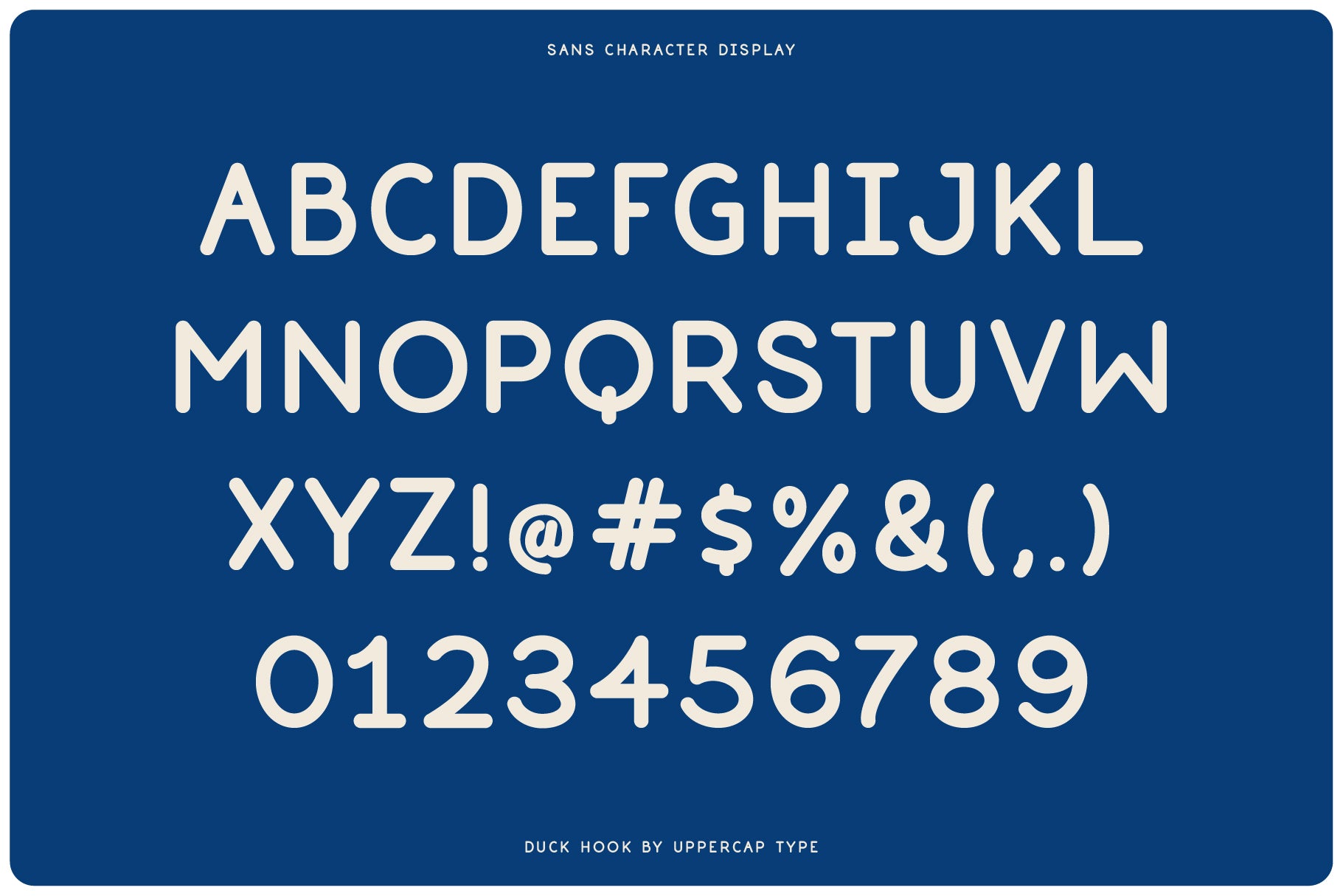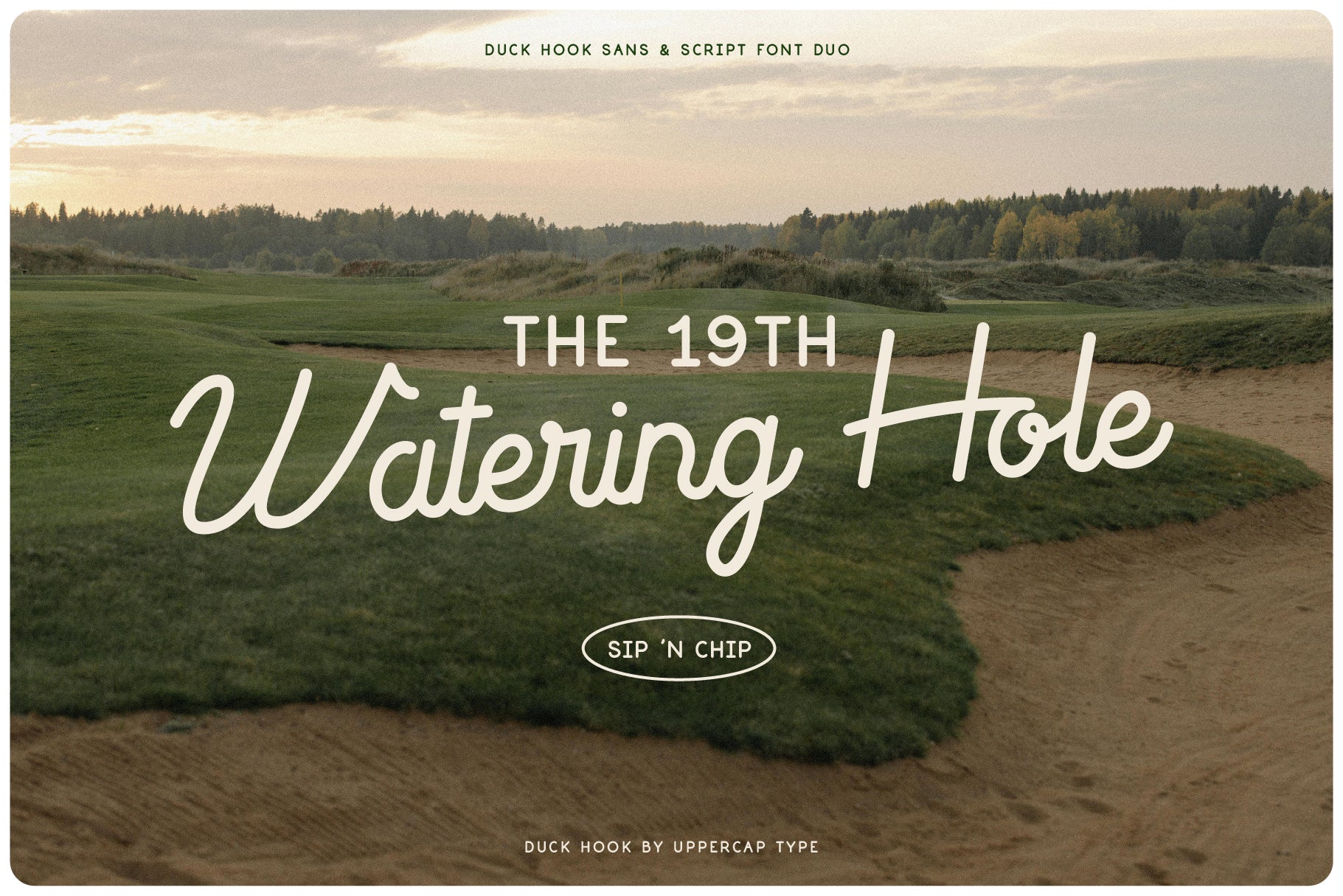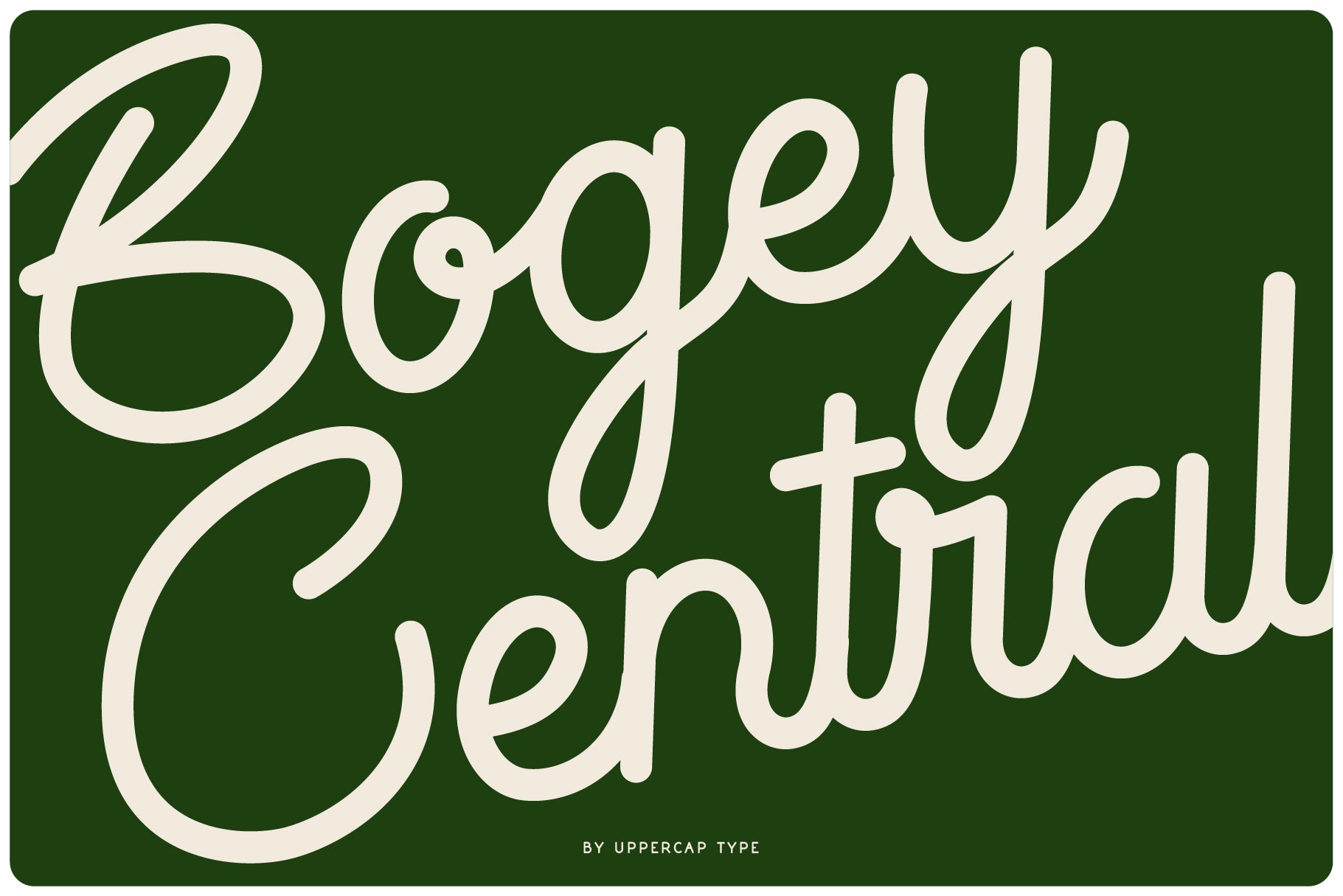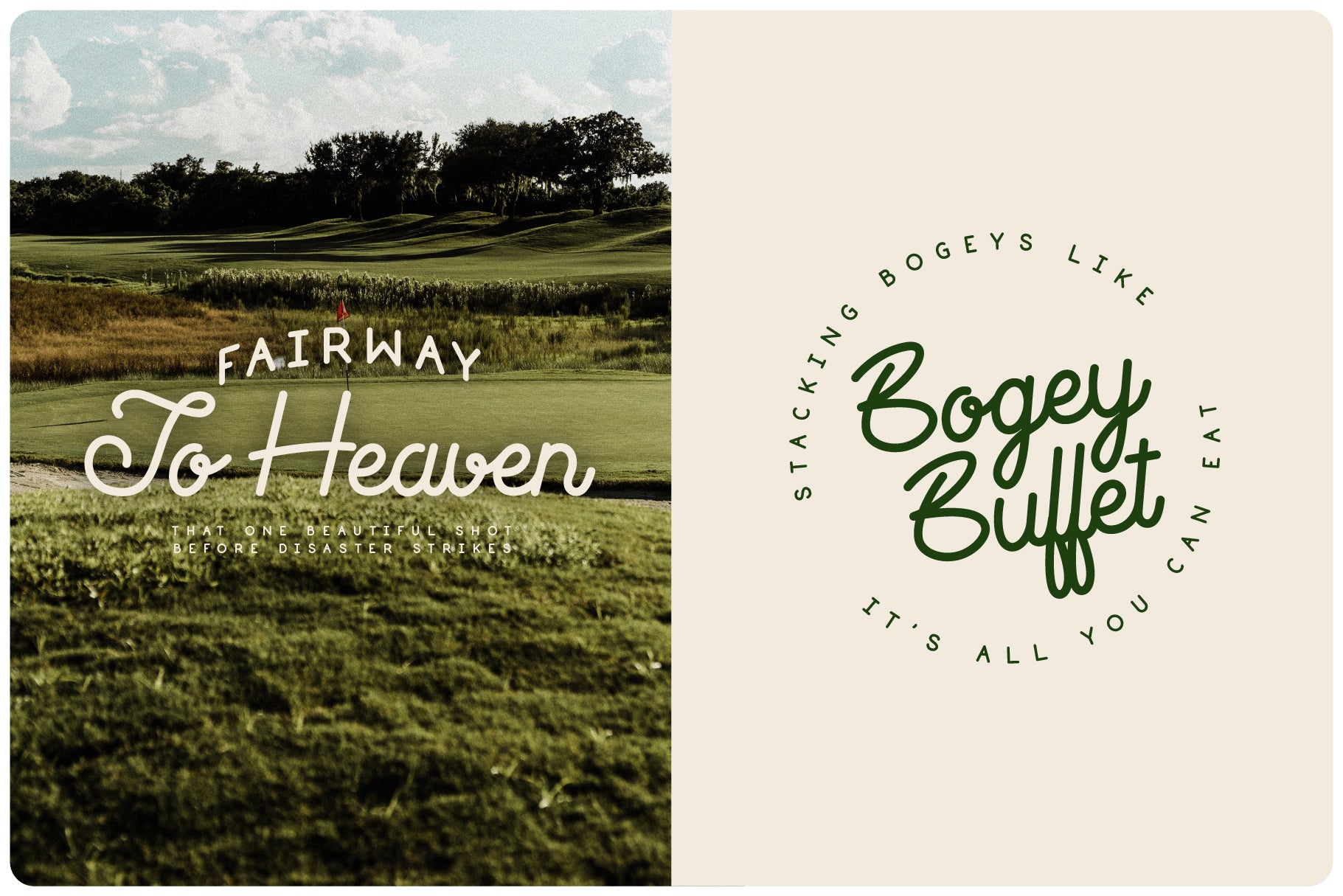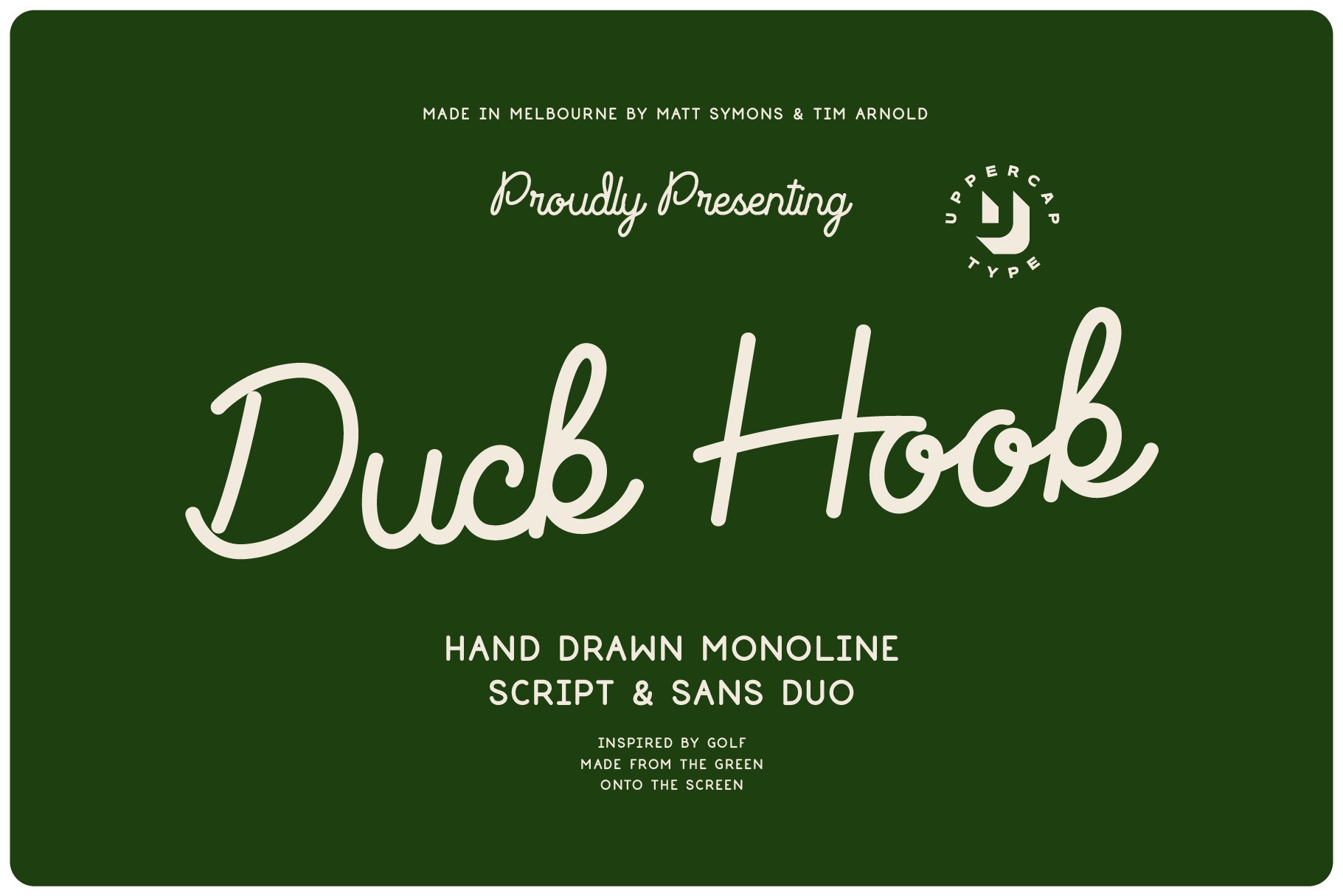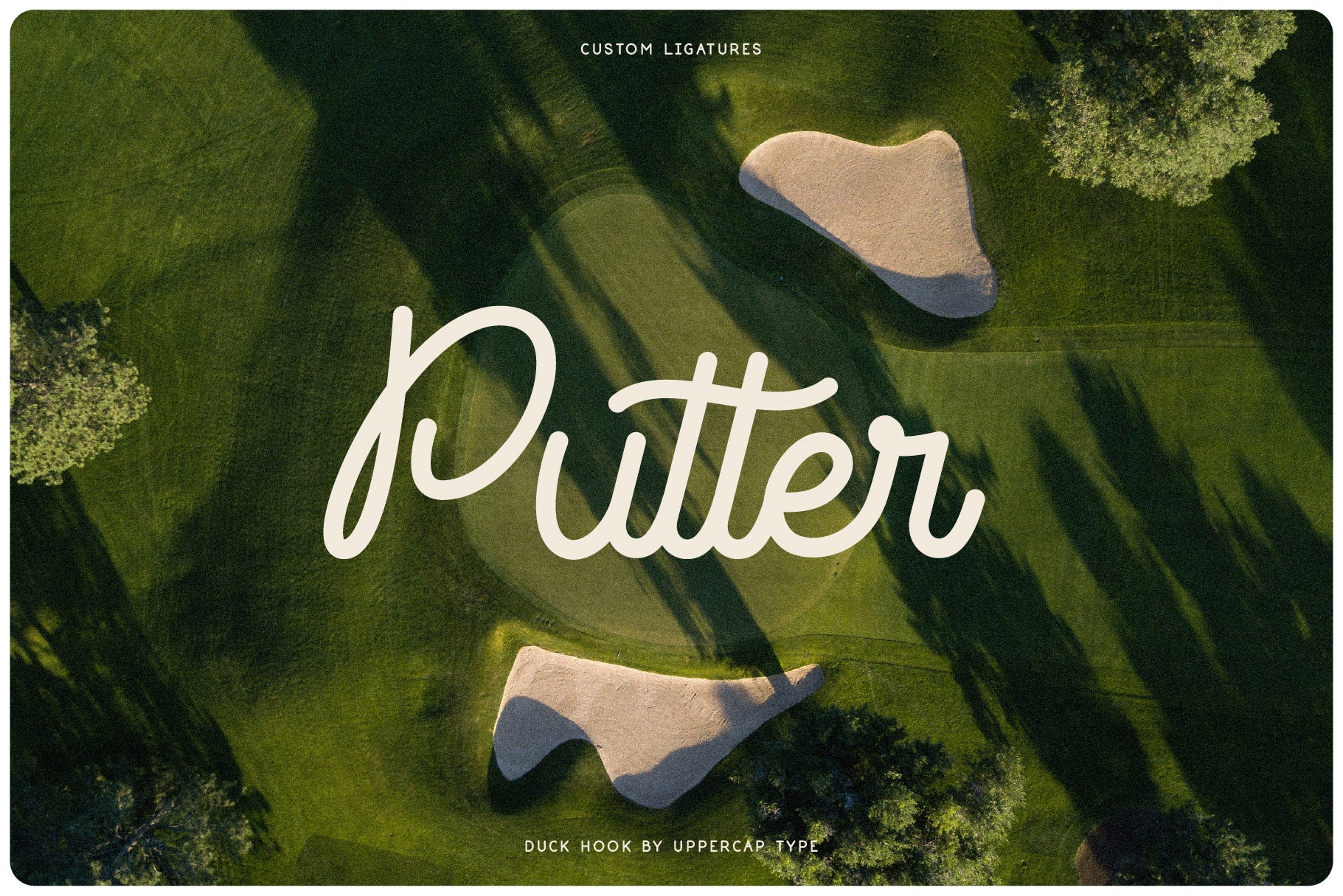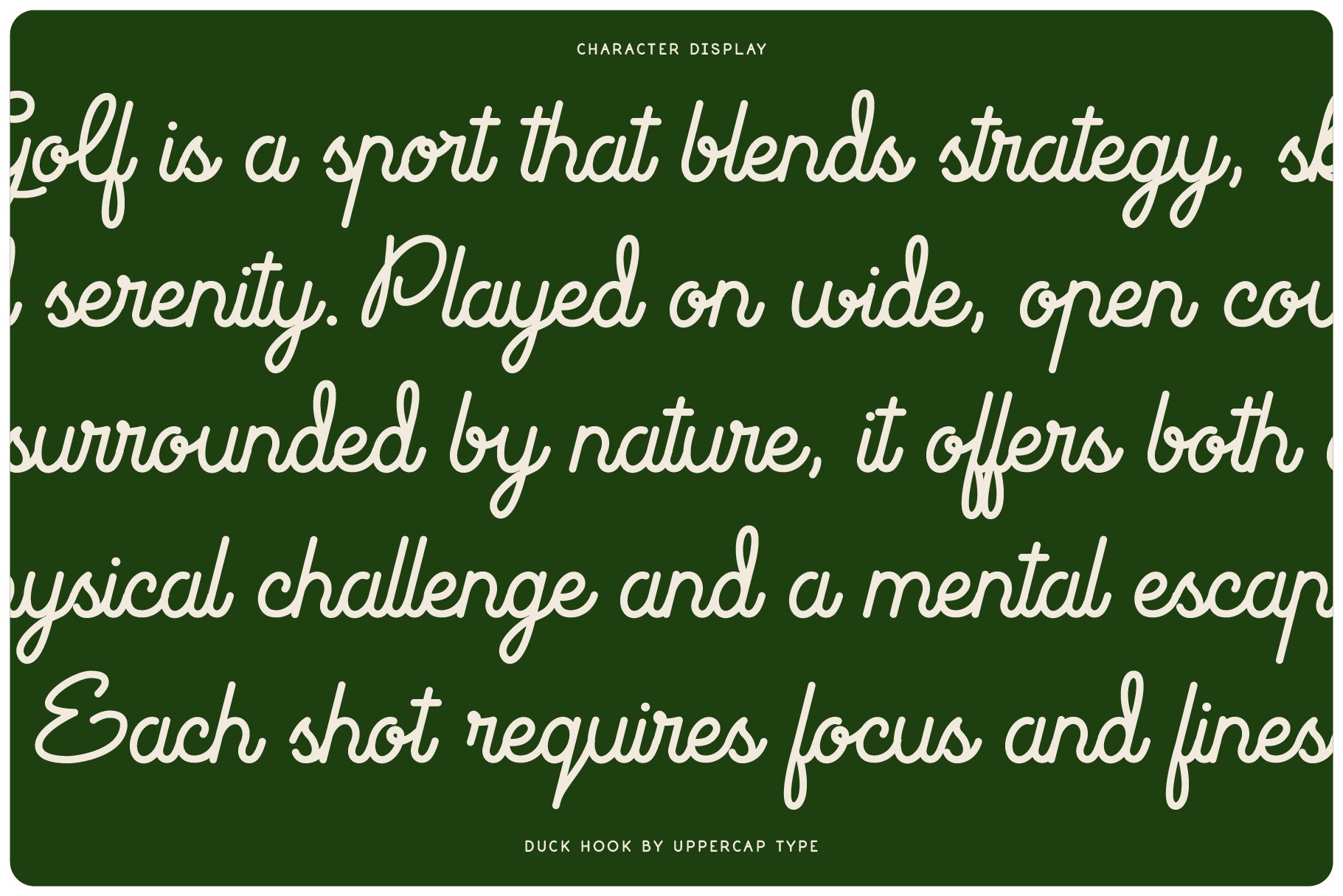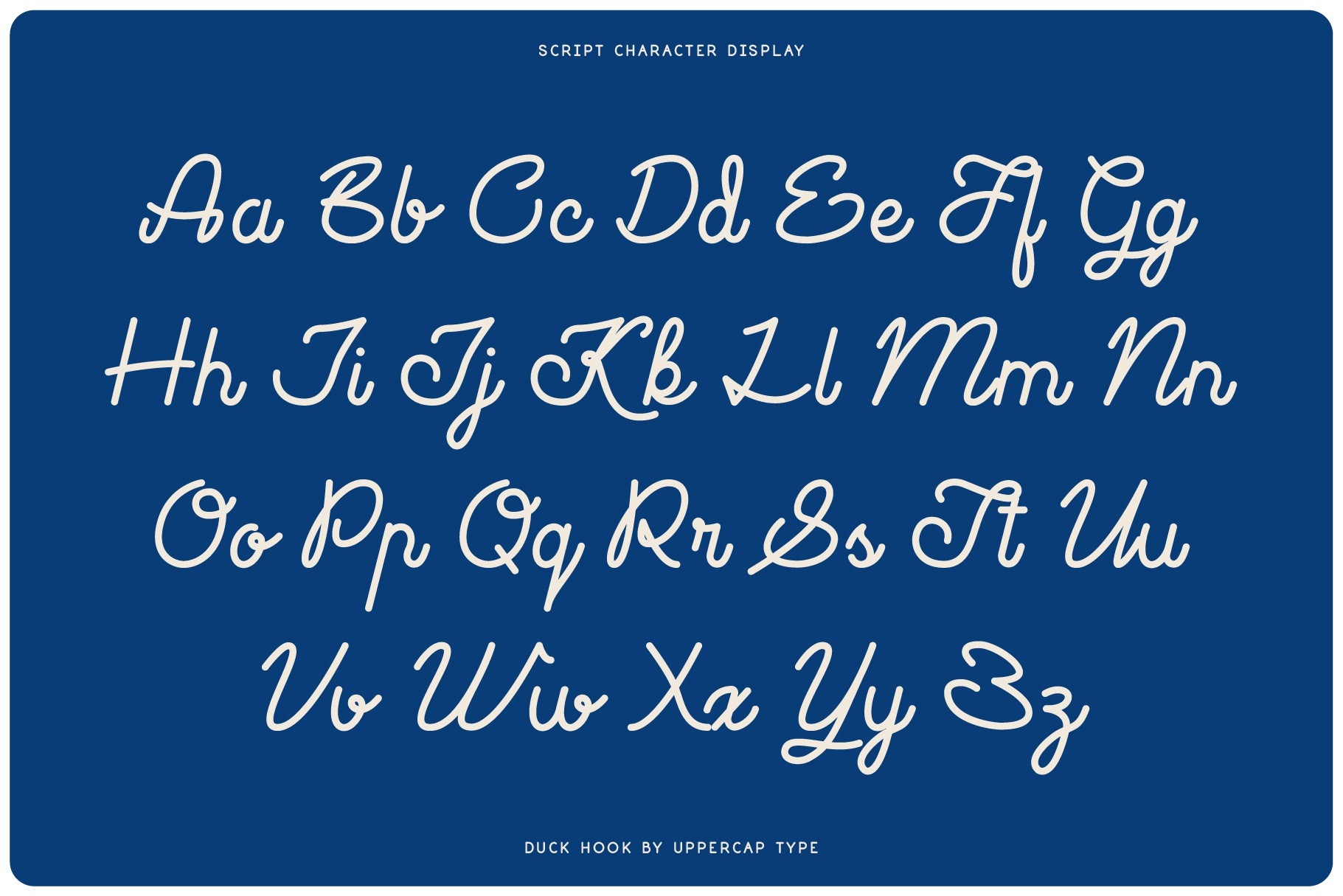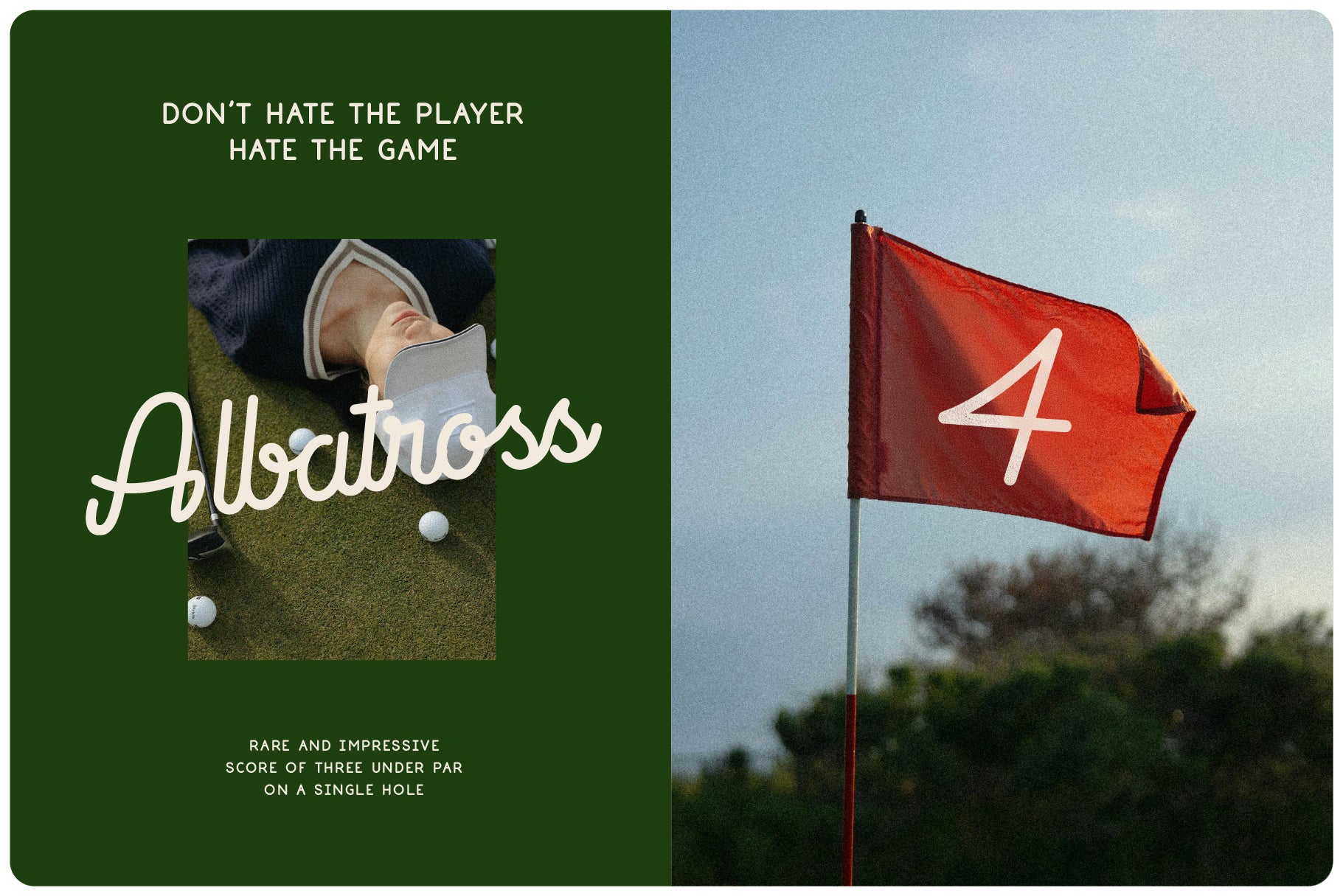
Duck Hook - Script & Sans Font Duo
Introducing Duck Hook from Uppercap Type! A playful font duo inspired by the quirks and charm of golf. With a smooth monoline script and a clean sans, it's perfect for apparel, clubhouse menus, logo designs, posters, typographic layouts or just swinging your design game into full gear.
Made by hand and includes all essential characters and punctuation.